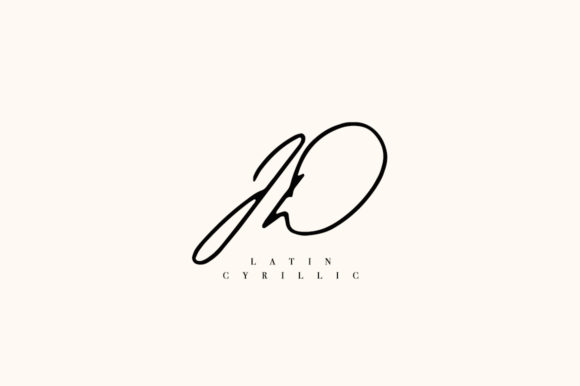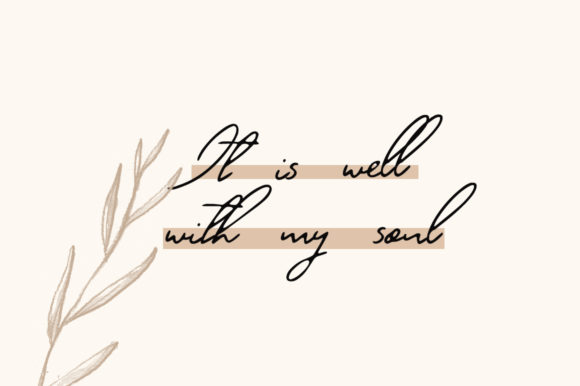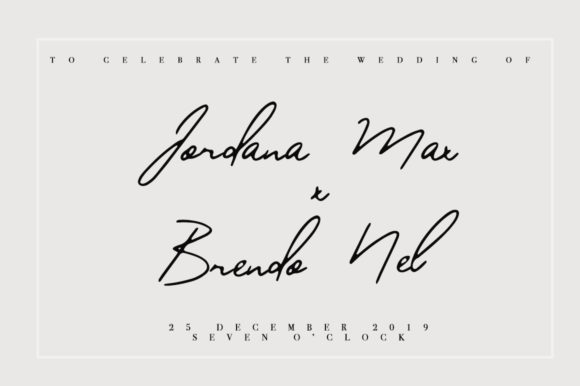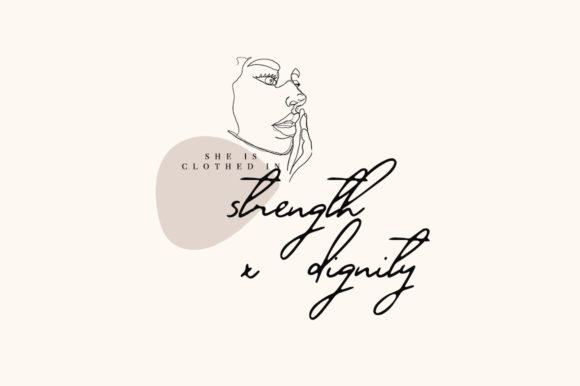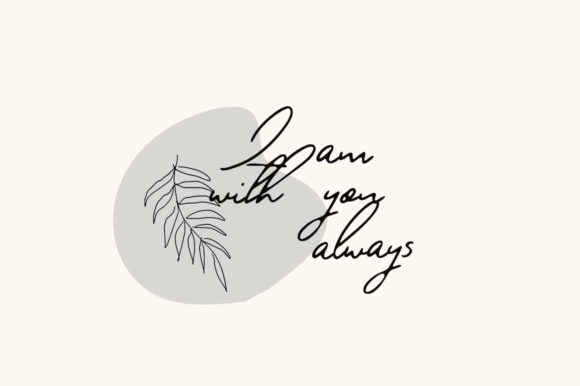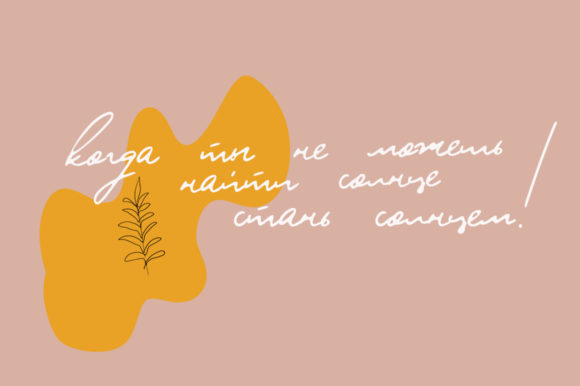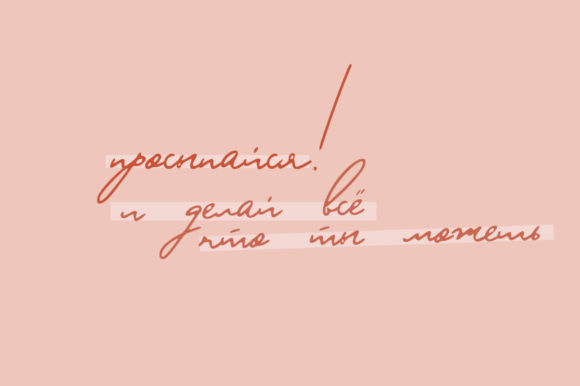
JD Font
About JD Font
JD is gorgeous and eye-catching, but also elegant. This versatile font has a wide range of applications ranging from titles to covers and is guaranteed to add an authentic touch to your next design.